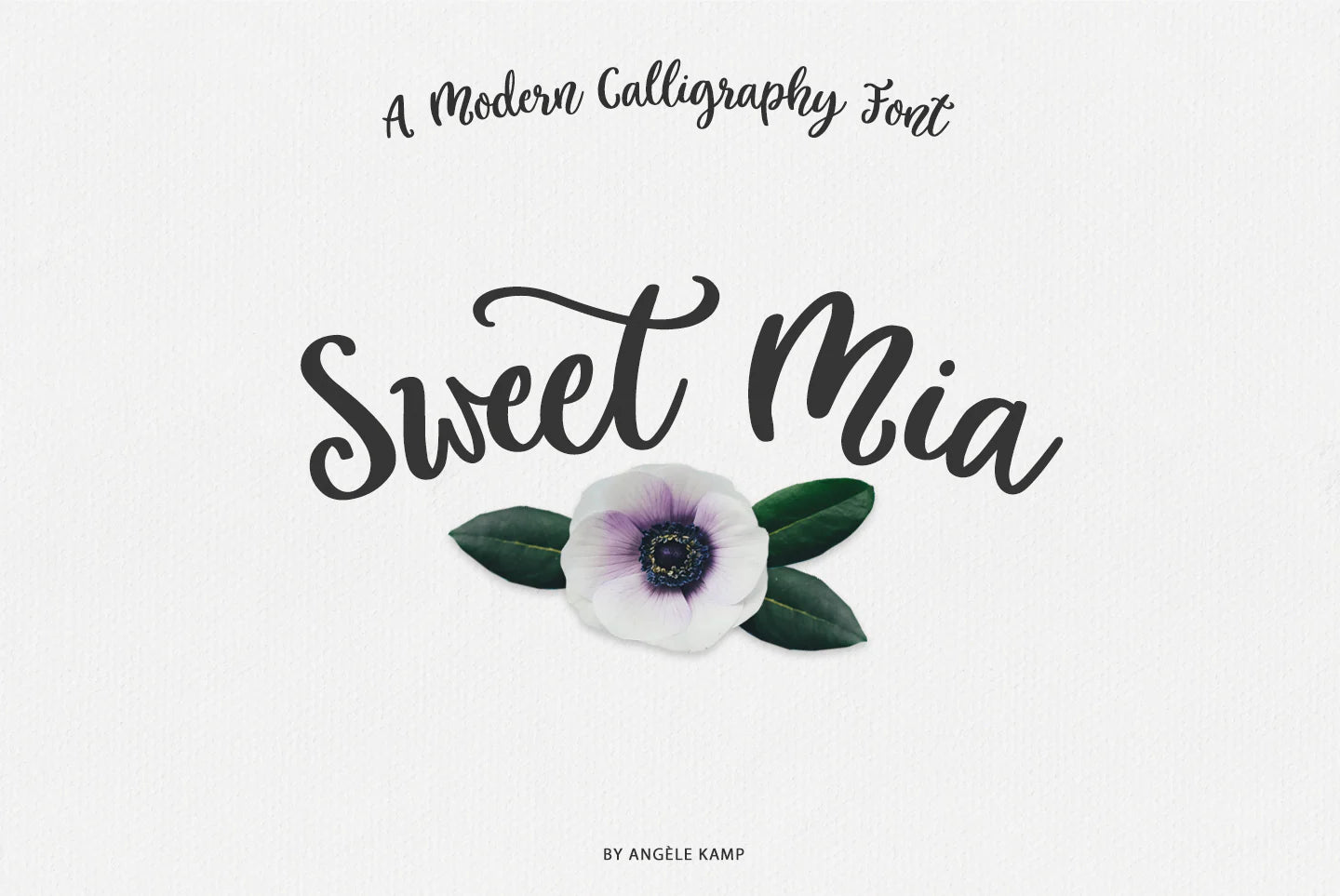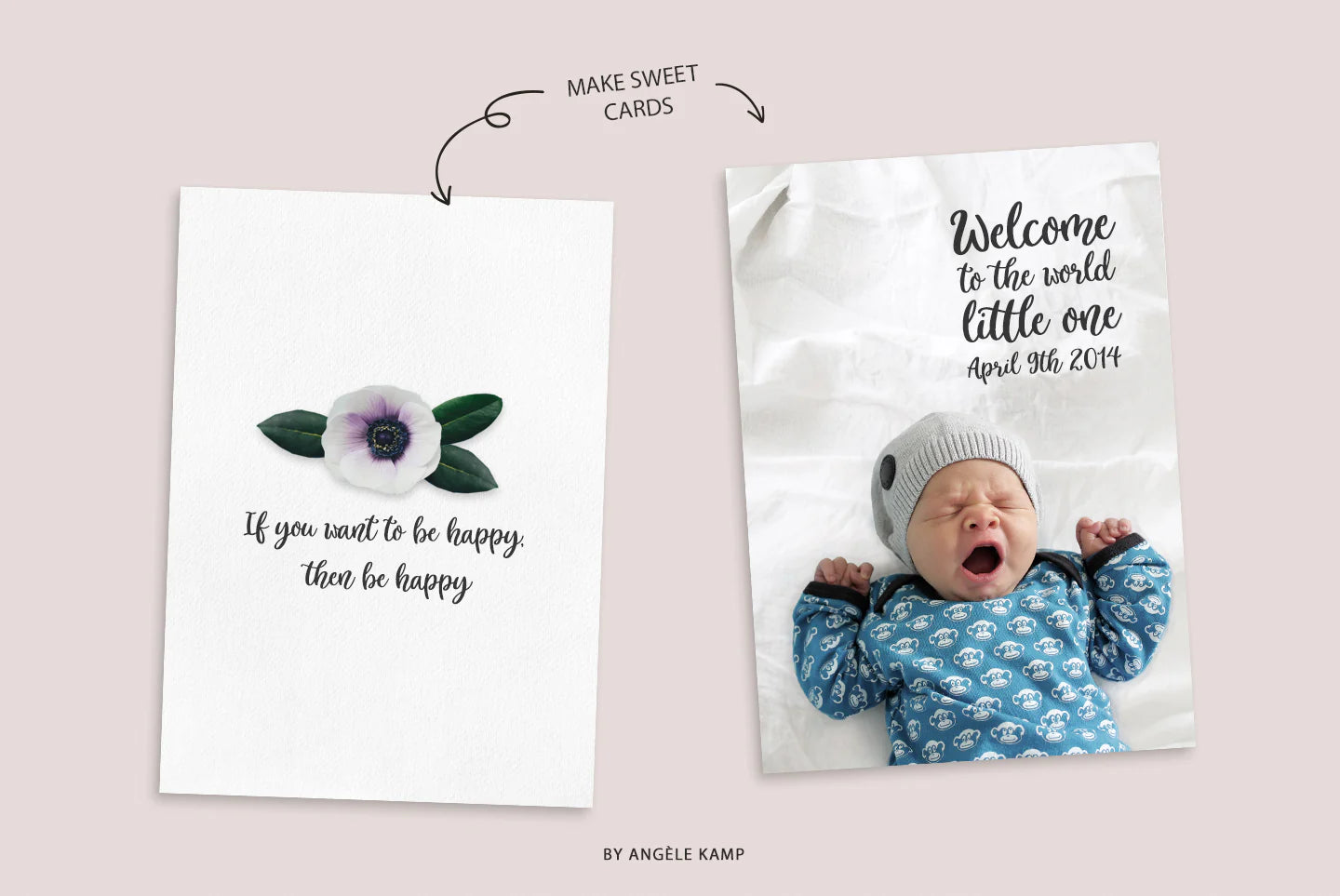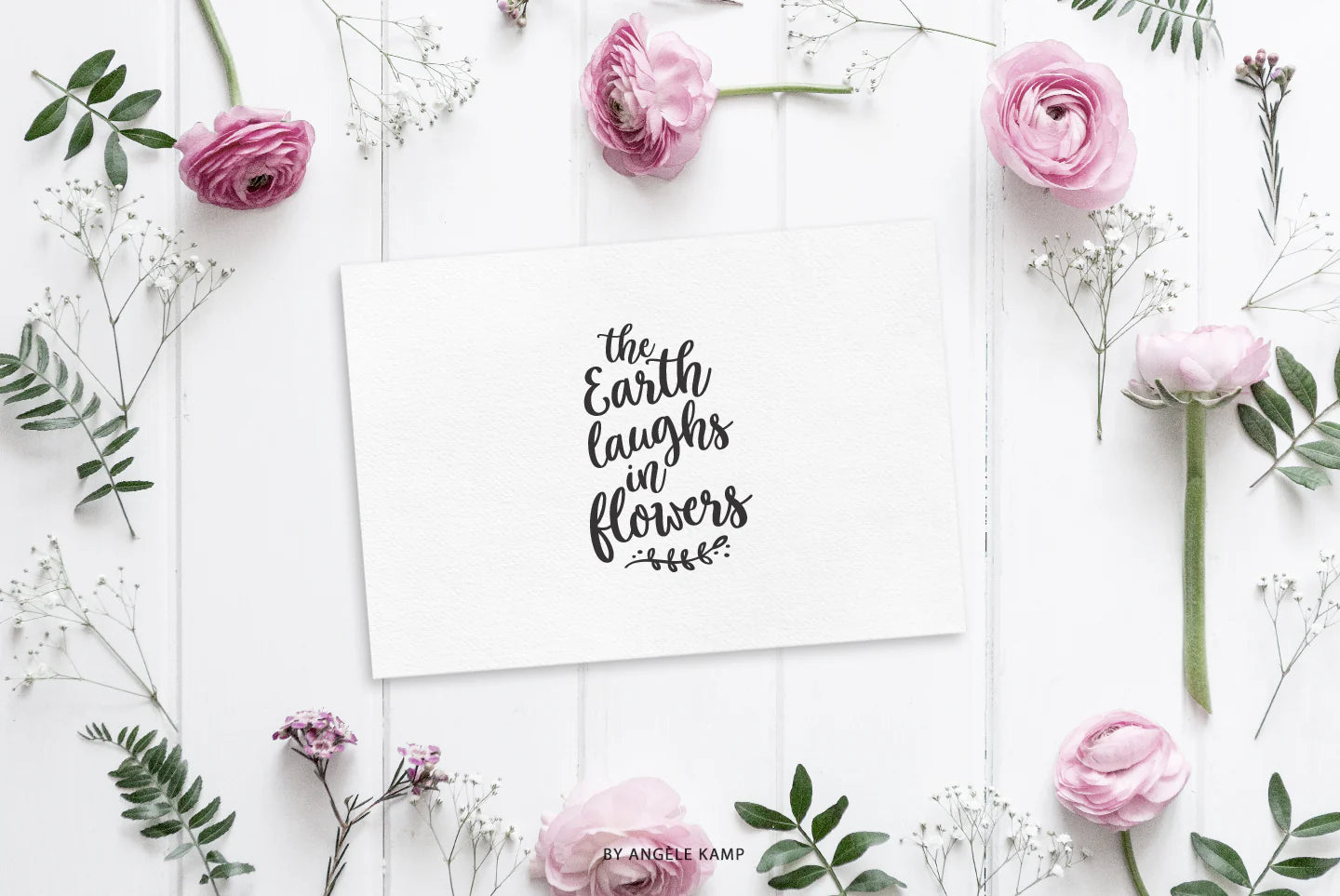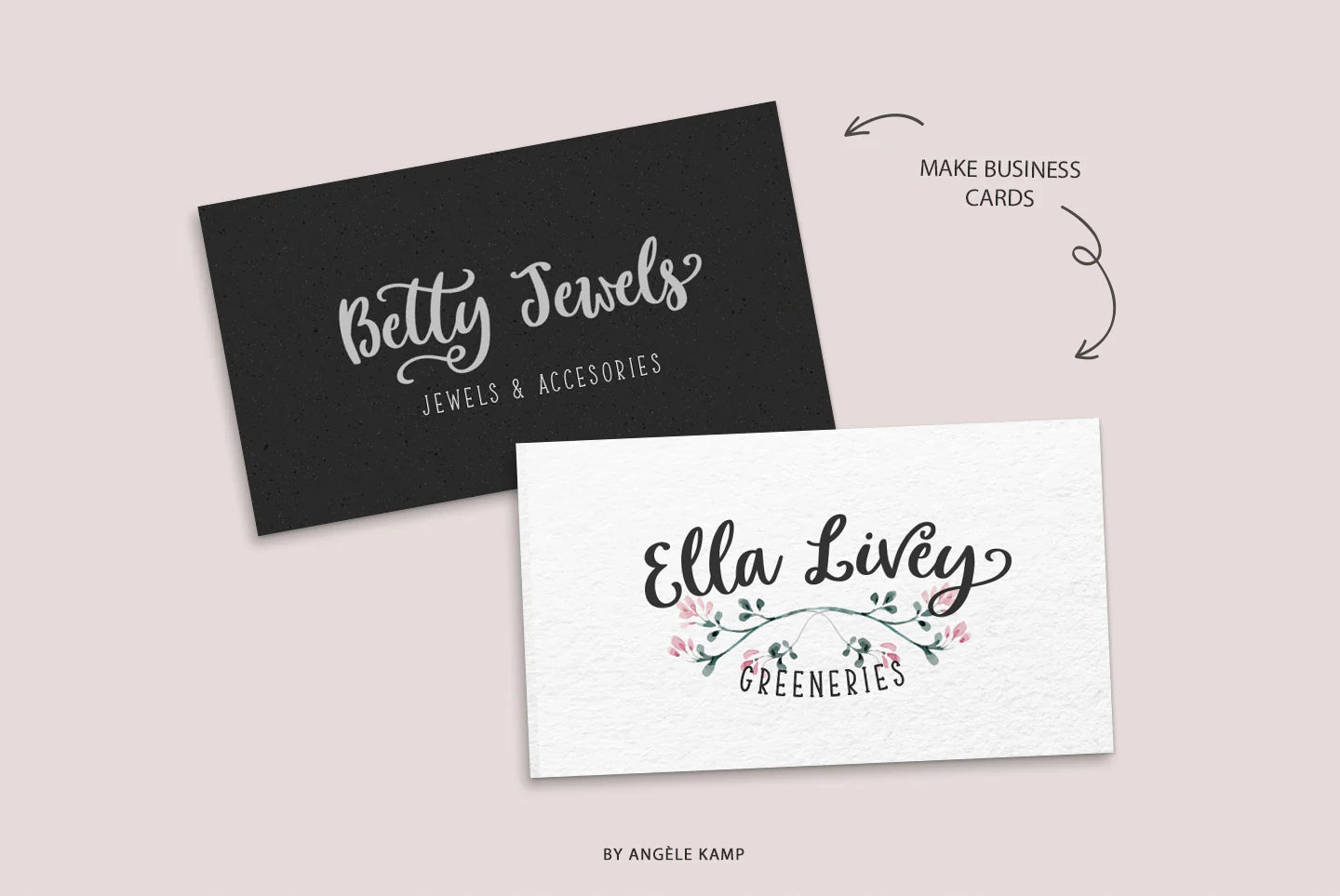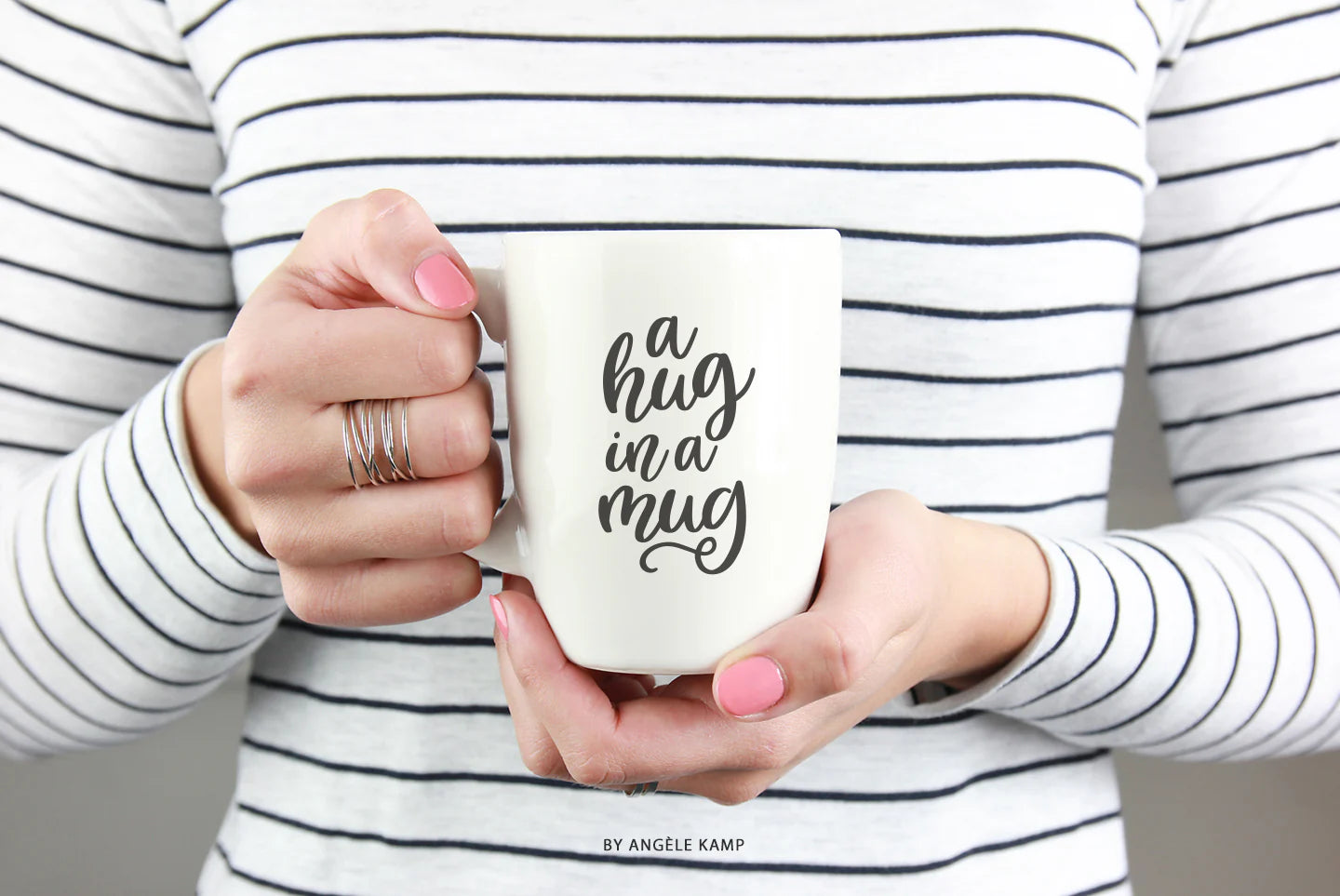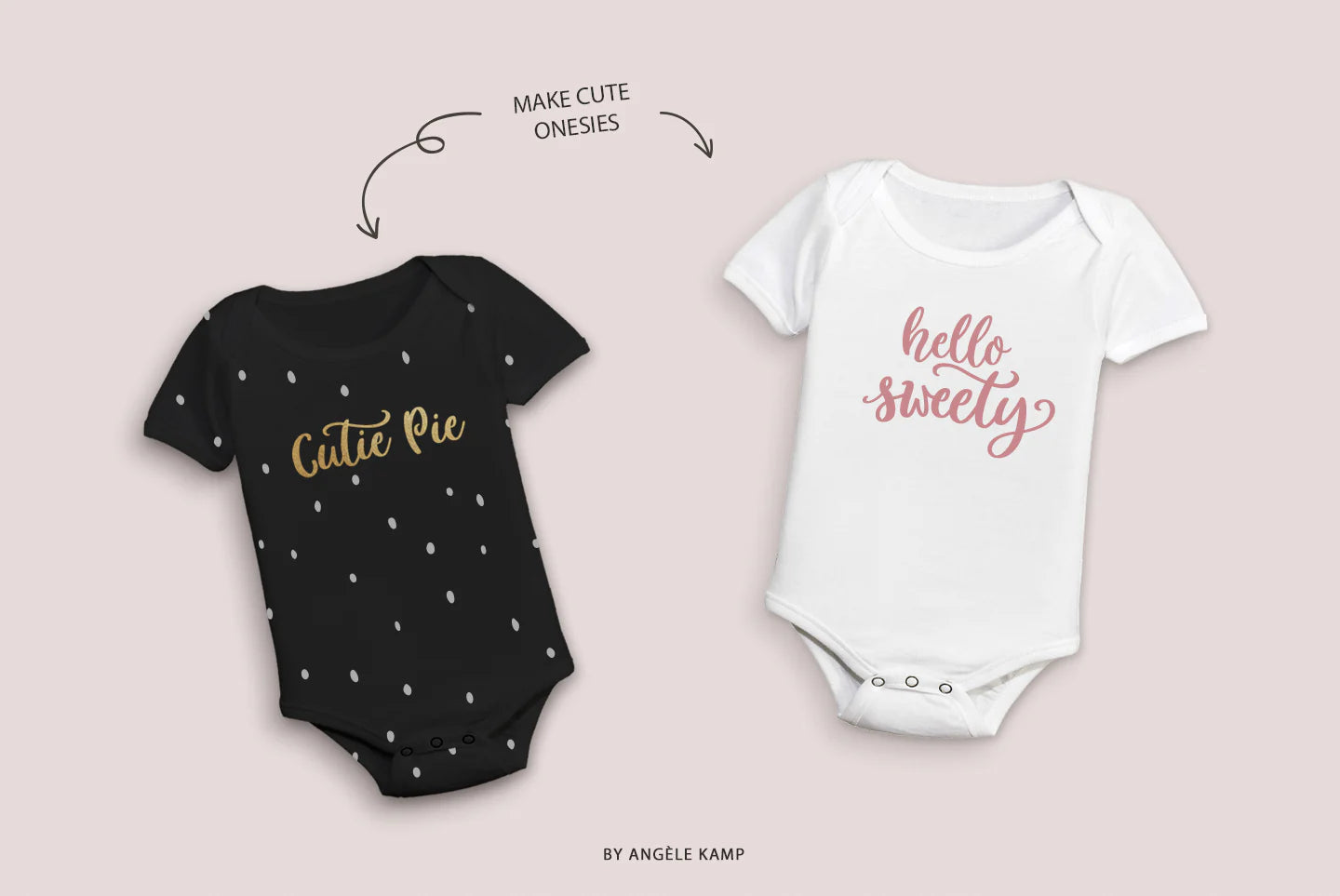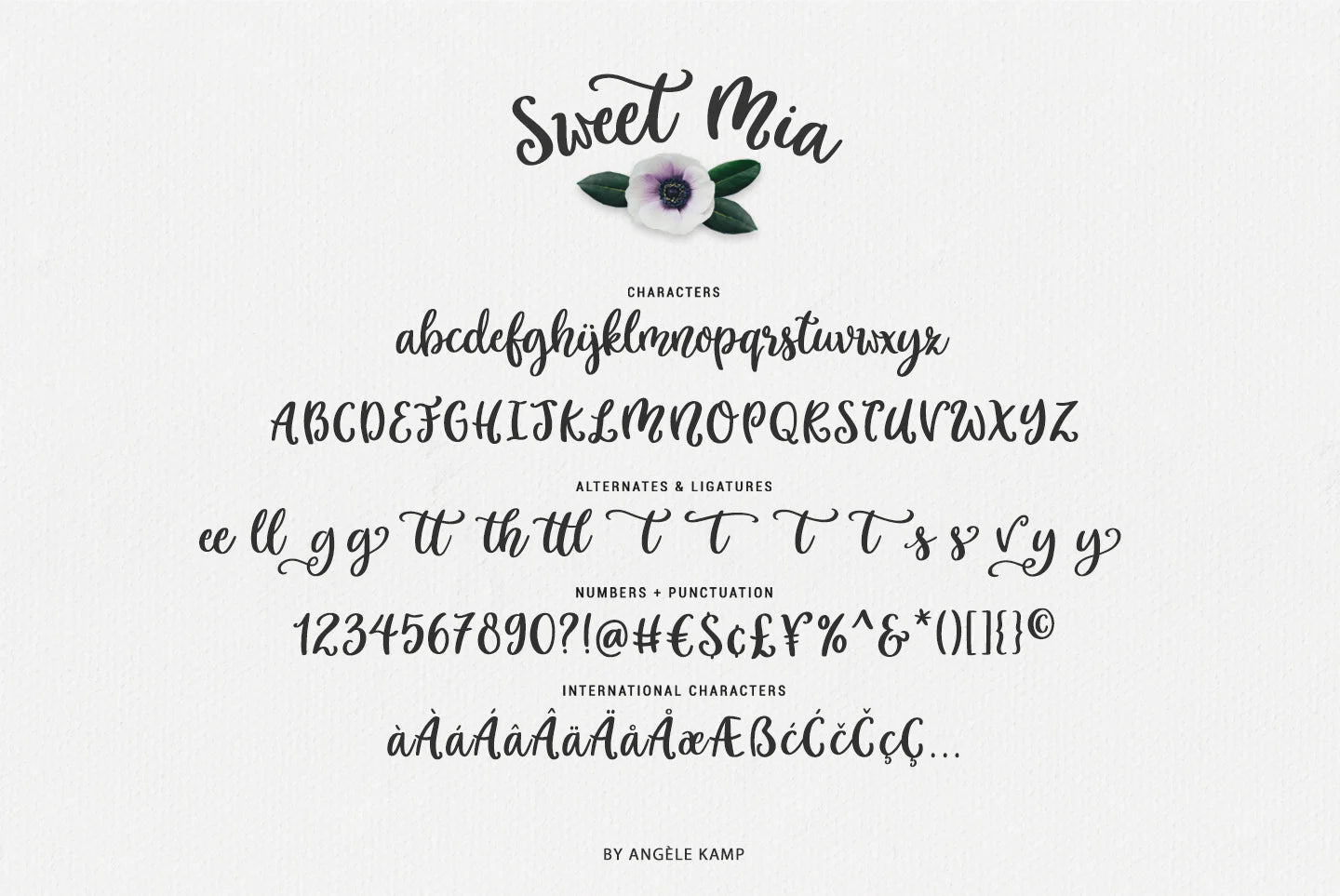
Sweet Mia Font
Sweet Mia is a playful modern calligraphy font with a dancing baseline. This sweet font has nice smooth lines and is perfect for crafters and cutting machines. Sweet Mia will look gorgeous on cards, mugs, quotes and all your other lovely projects.
Sweet Mia contains standard characters, lowercase, uppercase, numbers, punctuation, ligatures, international characters and some playful alternates. You will receive OTF and WOFF files.